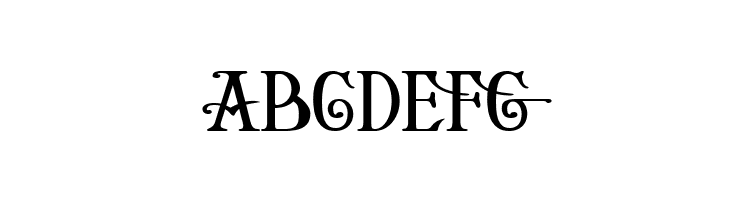
Ulfilas-FettKursiv Font
- Font: Ulfilas-FettKursiv
- Weight: Fett-Kursiv
- Version: Version 2.0 (kompletter Neuschnitt)
A bold, decorative font with ornate swirls and flourishes.